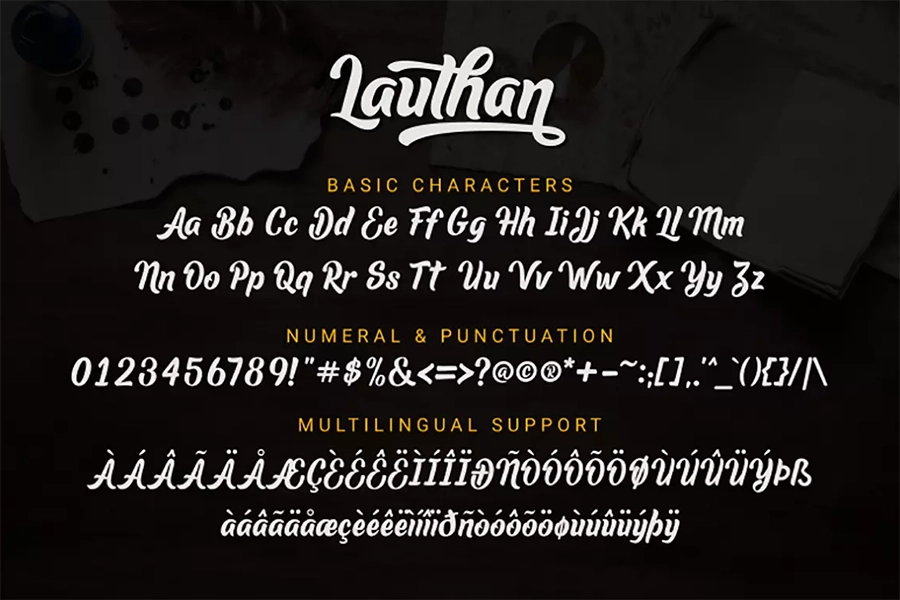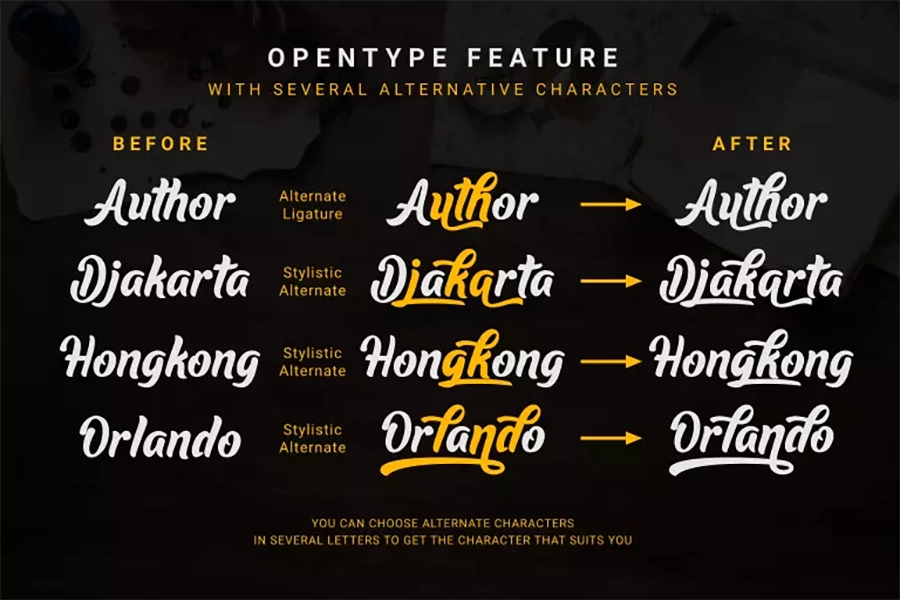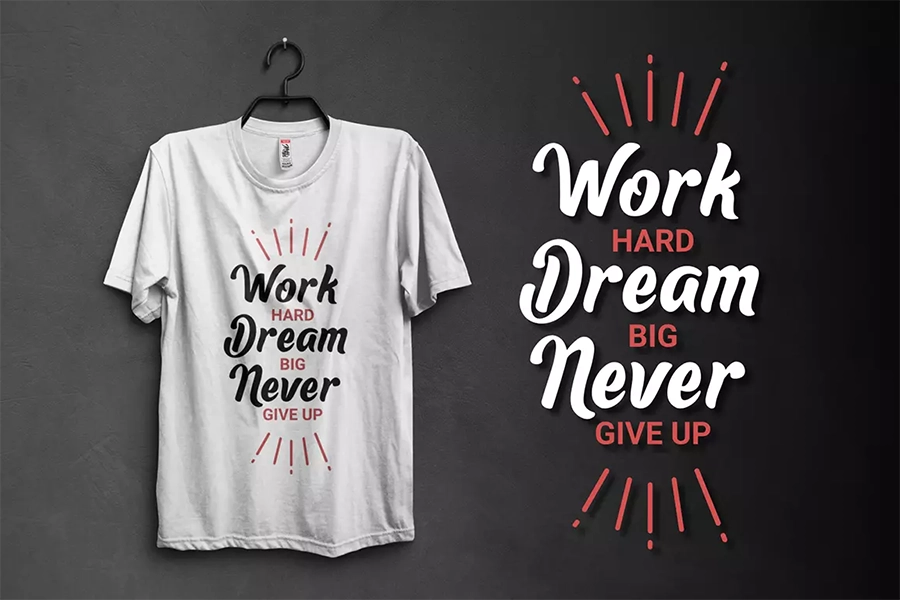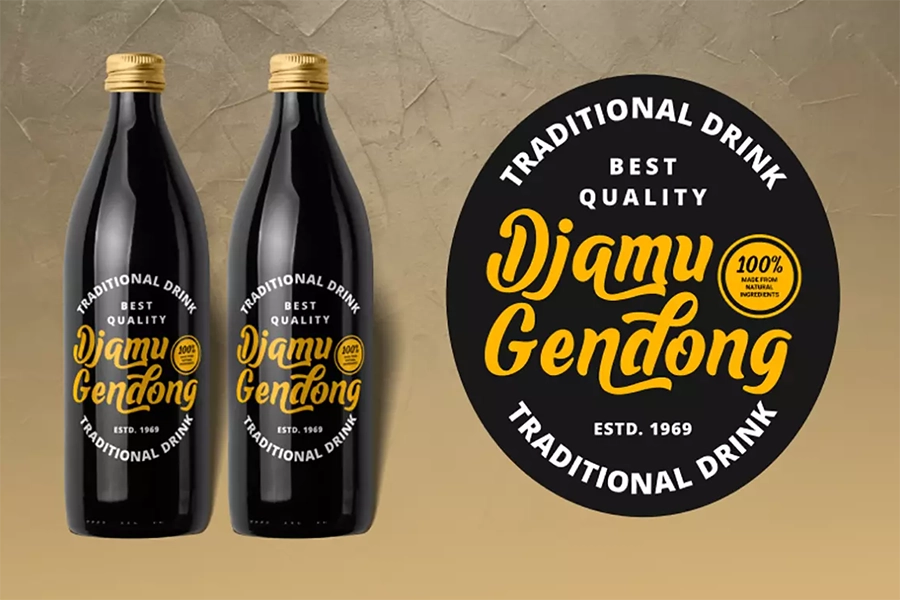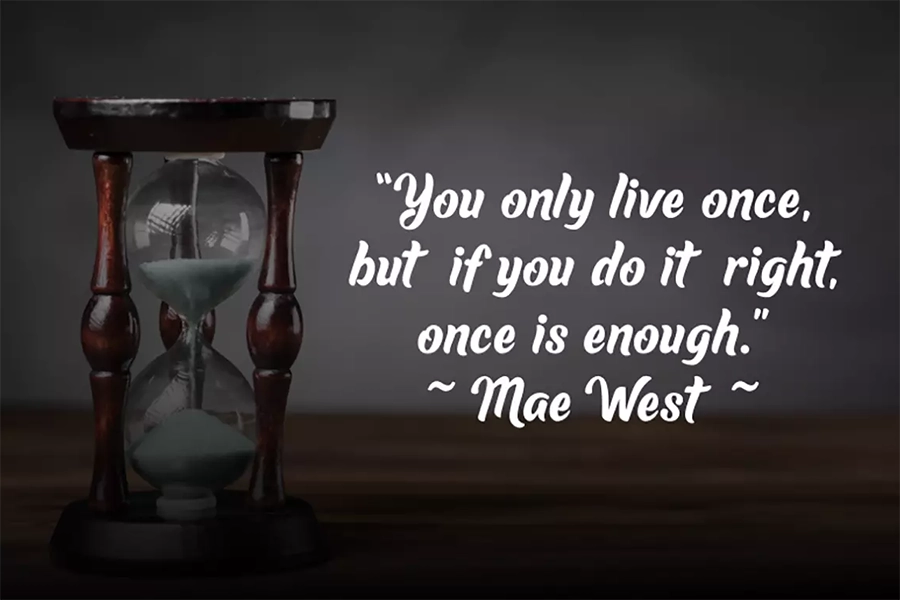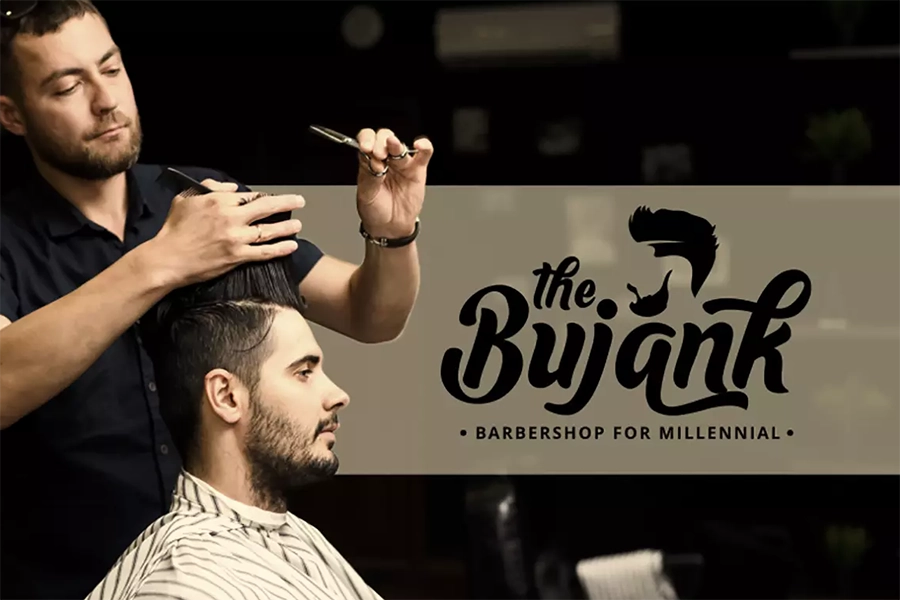
Lauthan – Fresh Bold Script
Lauthan is a fresh bold script that is very easy to use. This font is great for your next creative project such as logos, printed quotes, invitations, cards, product packaging, headers, Logotype, Letterhead, Poster, Apparel Design, Label, and etc.
Lauthan comes with uppercase, lowercase, numerals, punctuations, multilingual support and some variations on each characters include opentype feature (alternates and ligatures).